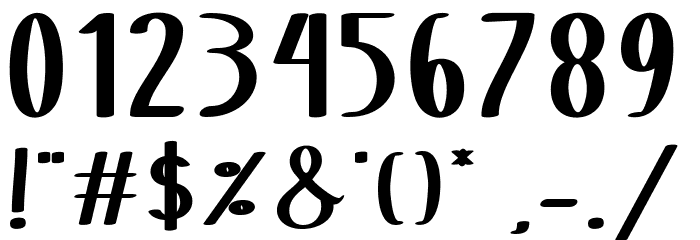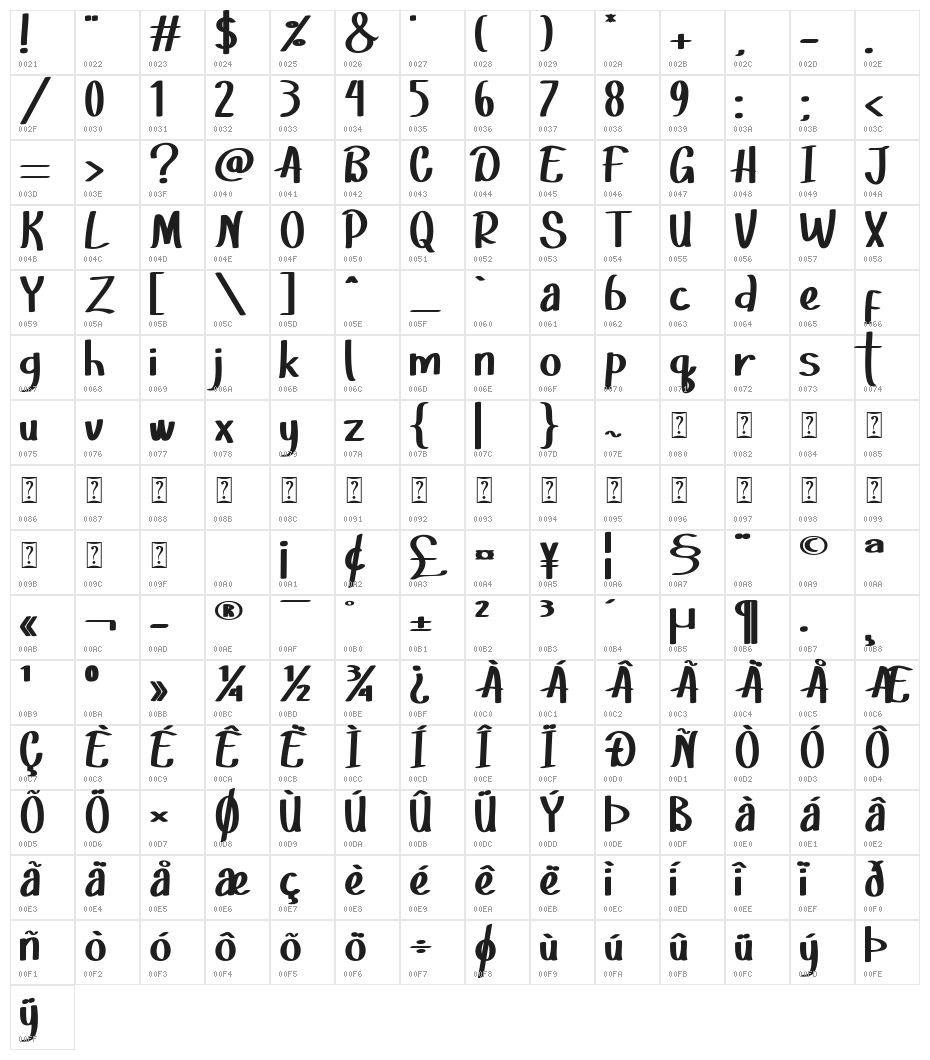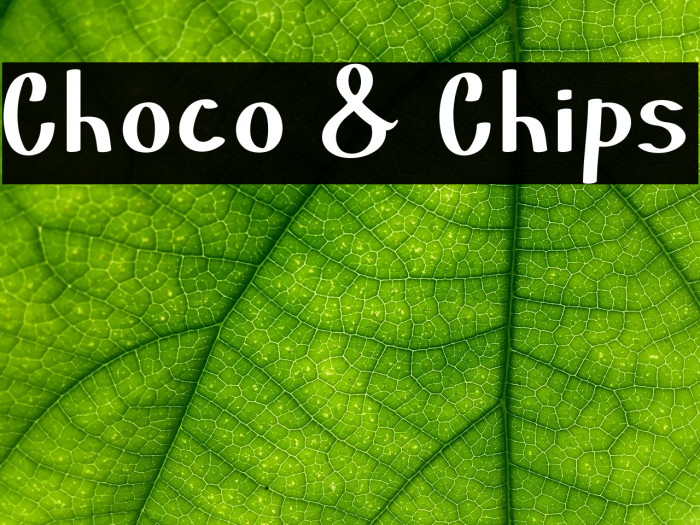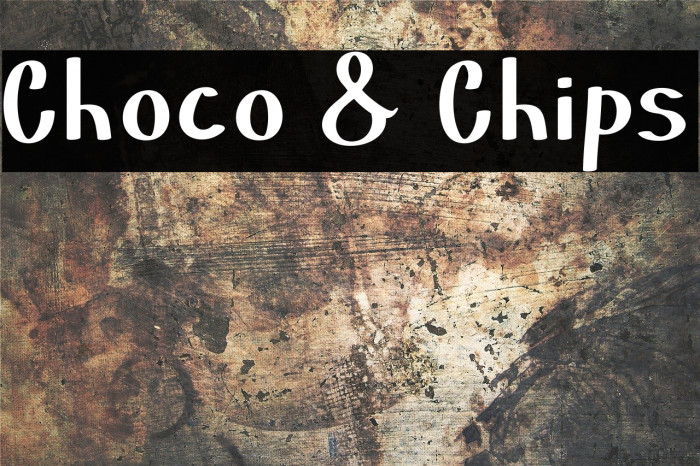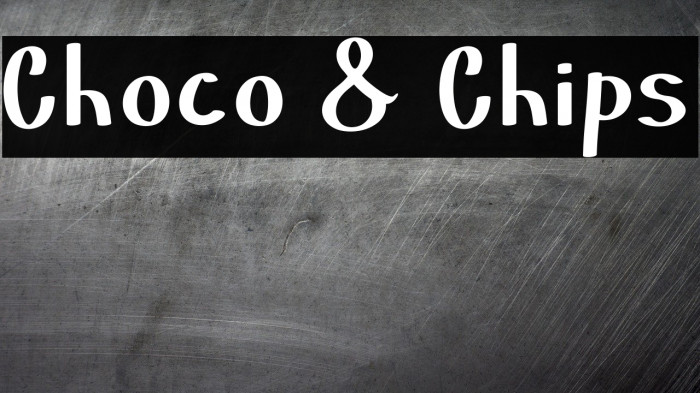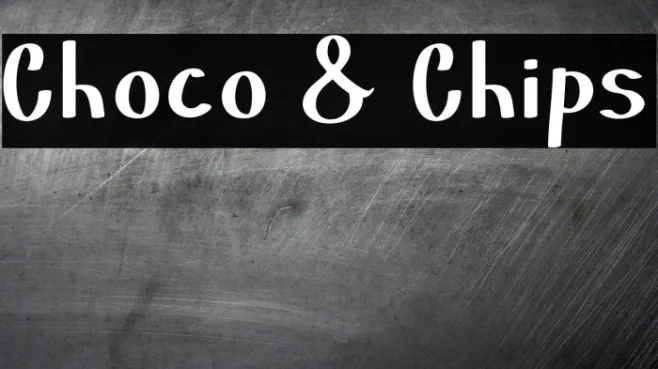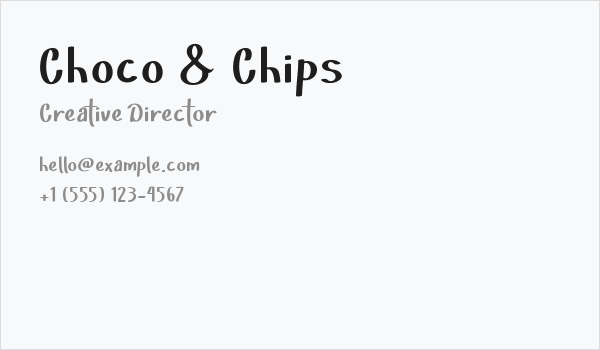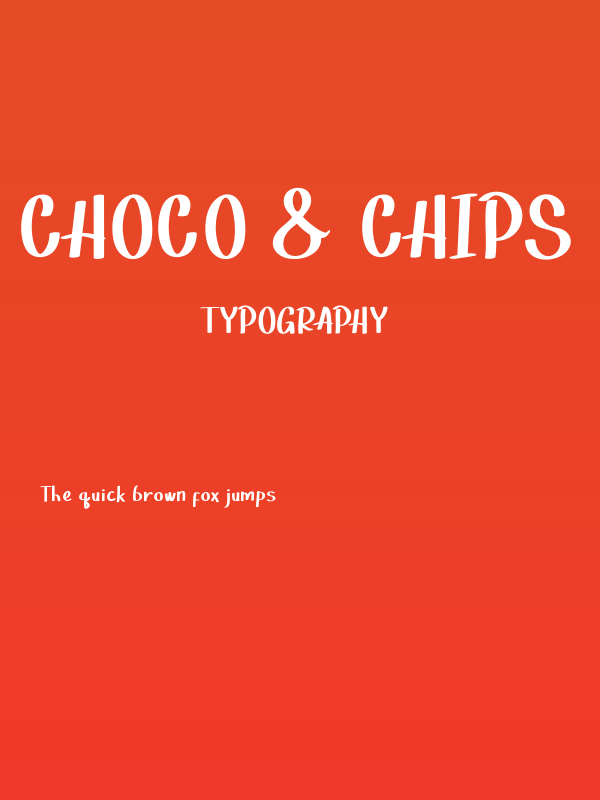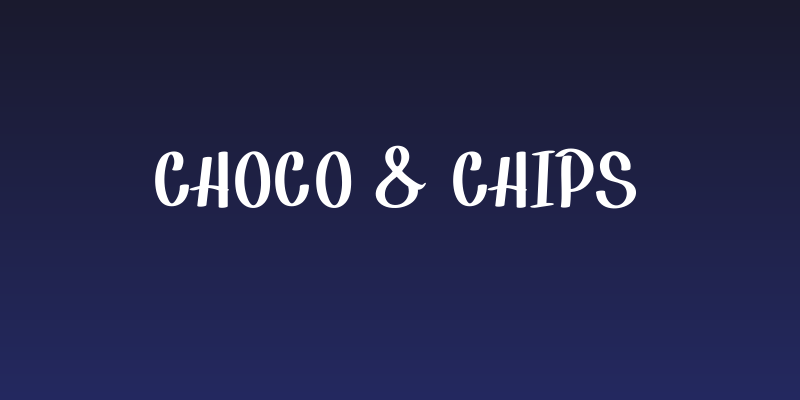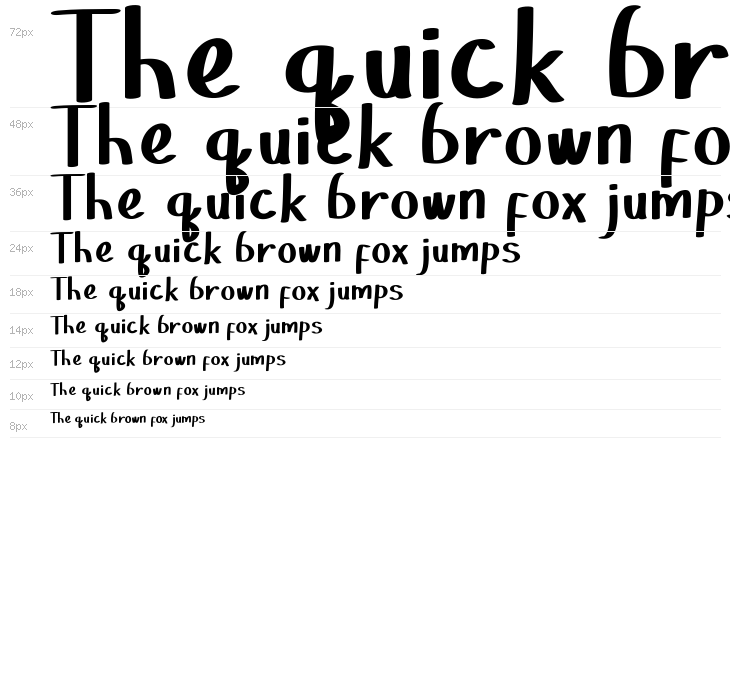
Choco & Chips Font
Choco & Chips Description
This playful and energetic font features a handwritten style with a bold and slightly irregular appearance. The characters are rounded and have a whimsical flair, making them stand out with a friendly and approachable vibe. The uppercase letters are bold and dynamic, while the lowercase letters maintain a consistent flow with slight variations in stroke thickness. Numbers and special characters are designed to match the lively style, adding to the font's overall charm. The font's informal and casual nature makes it perfect for projects that require a touch of personality and creativity.